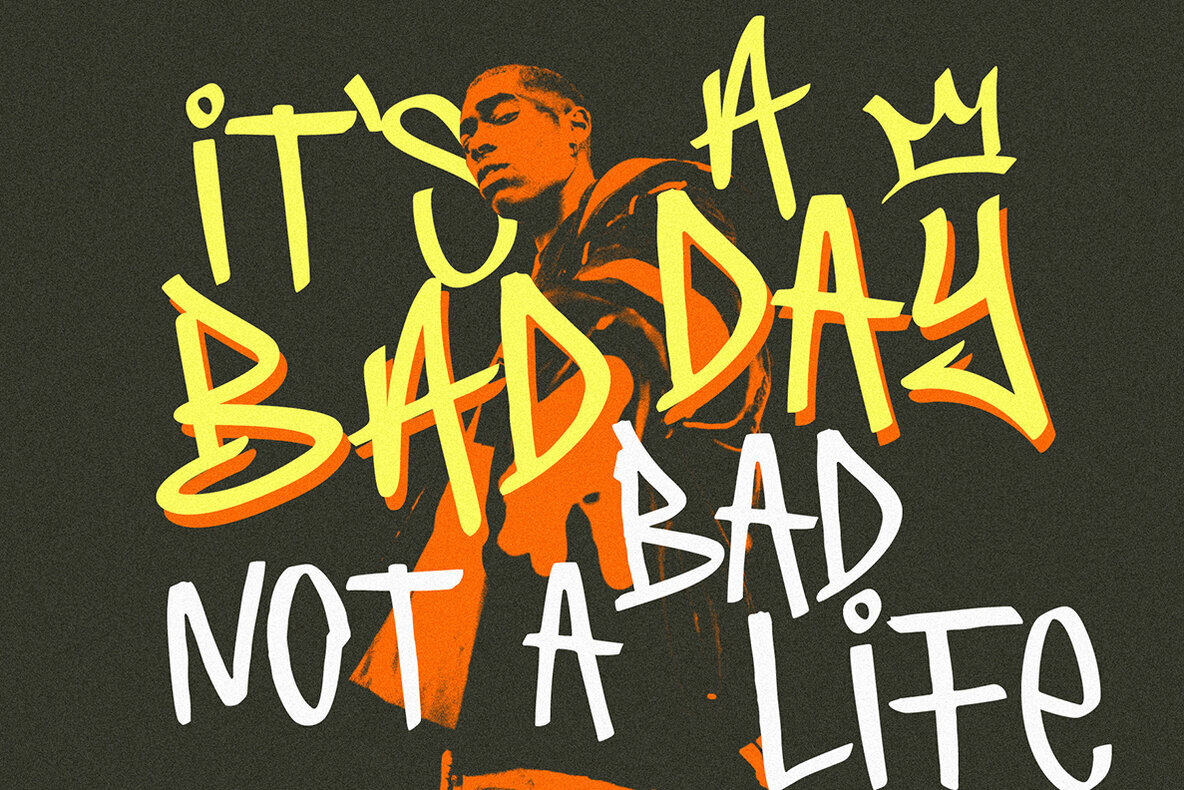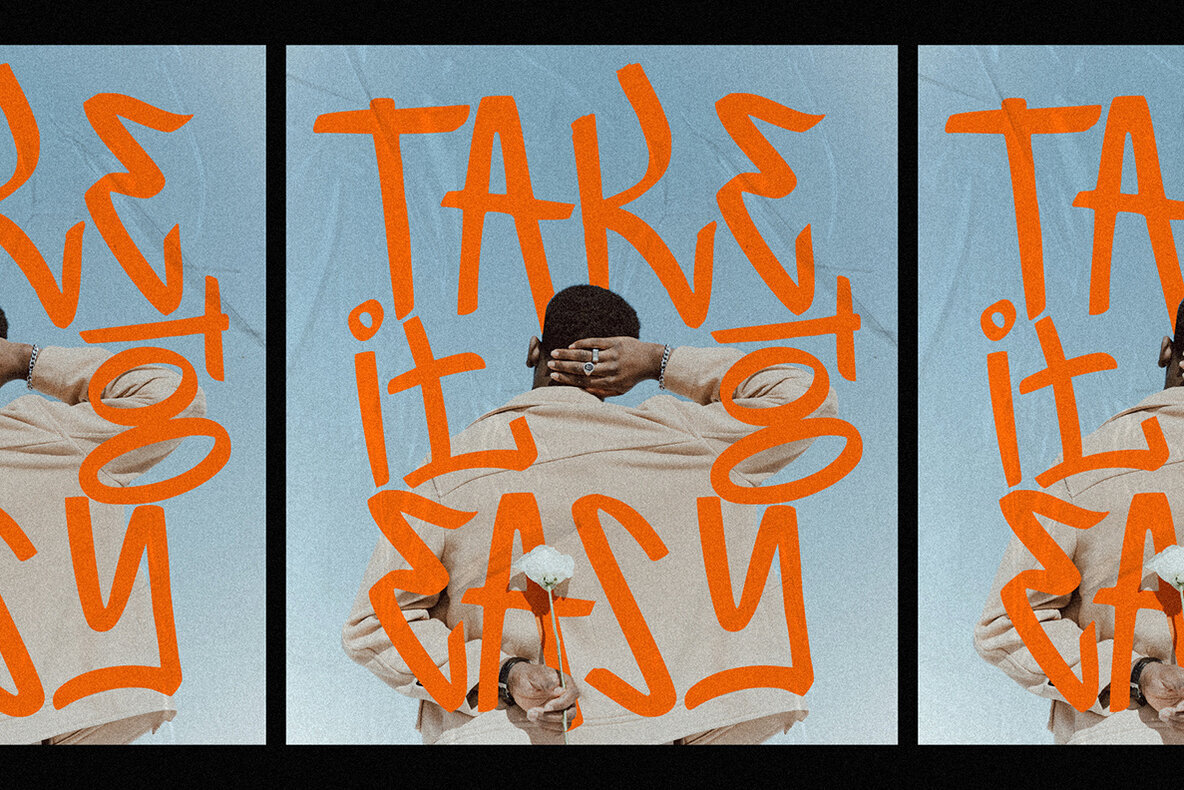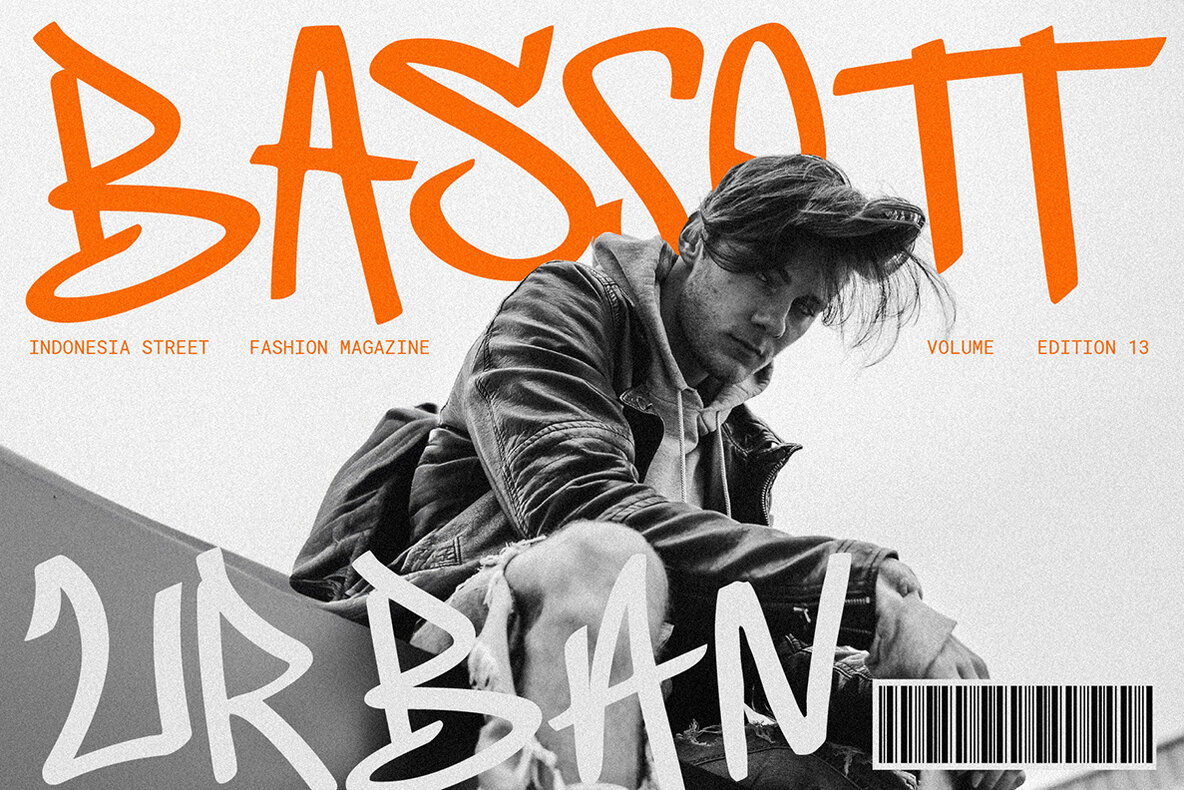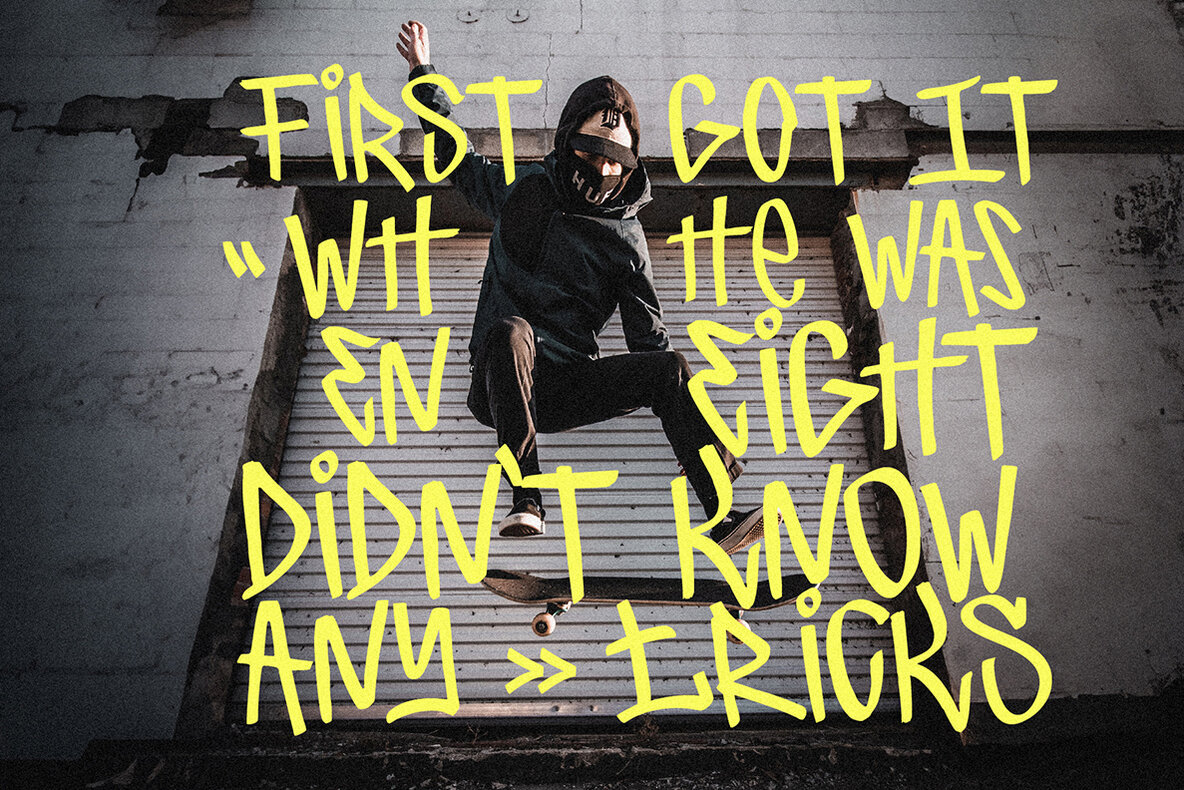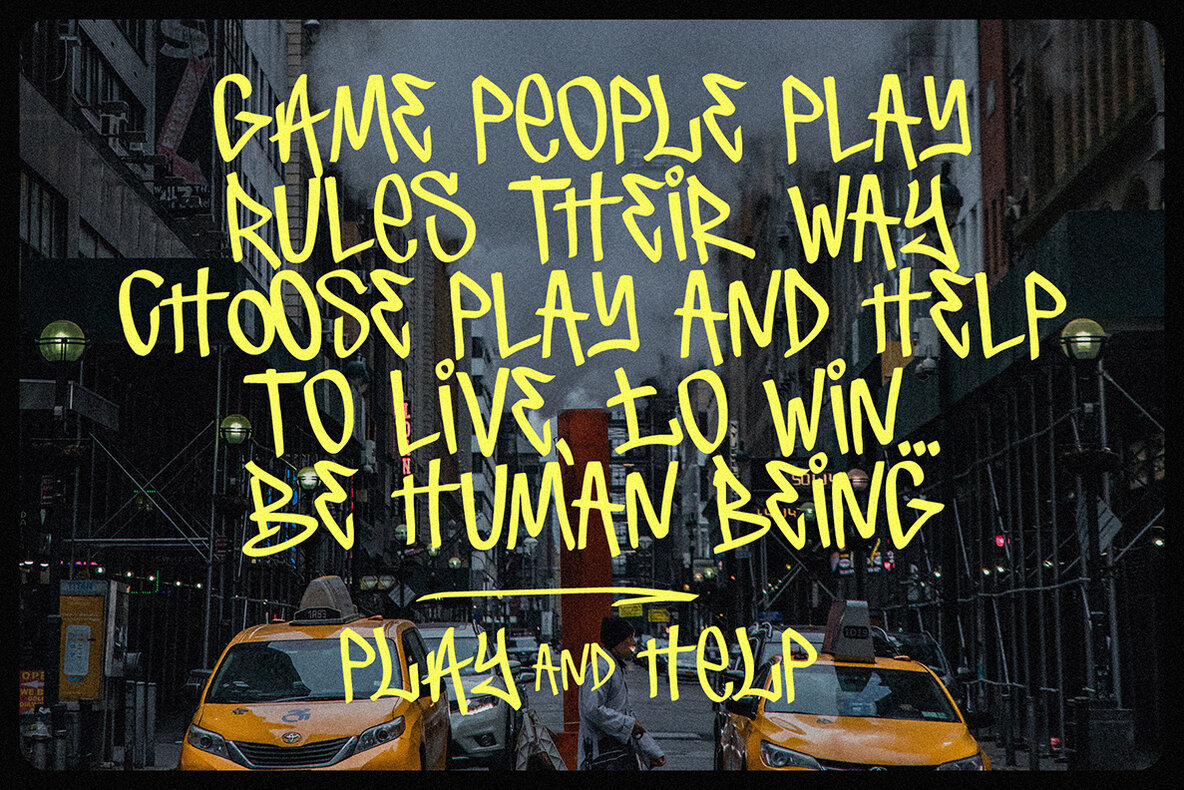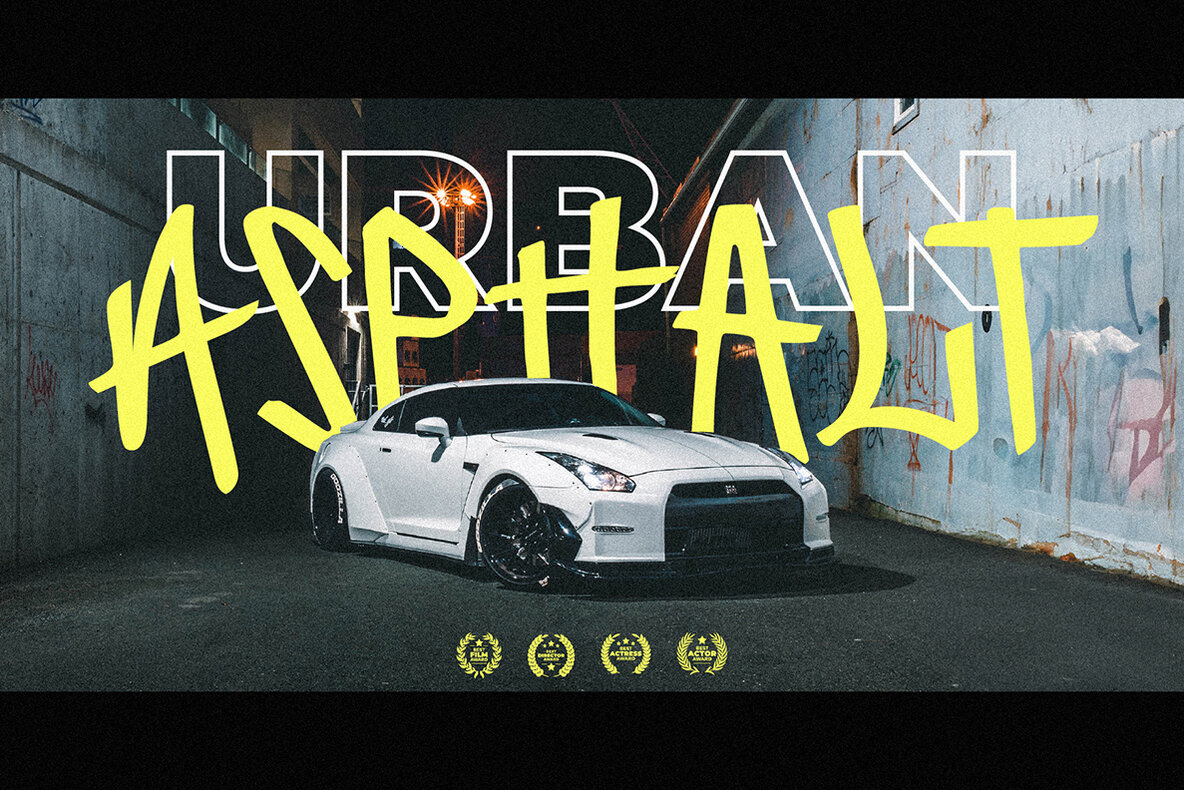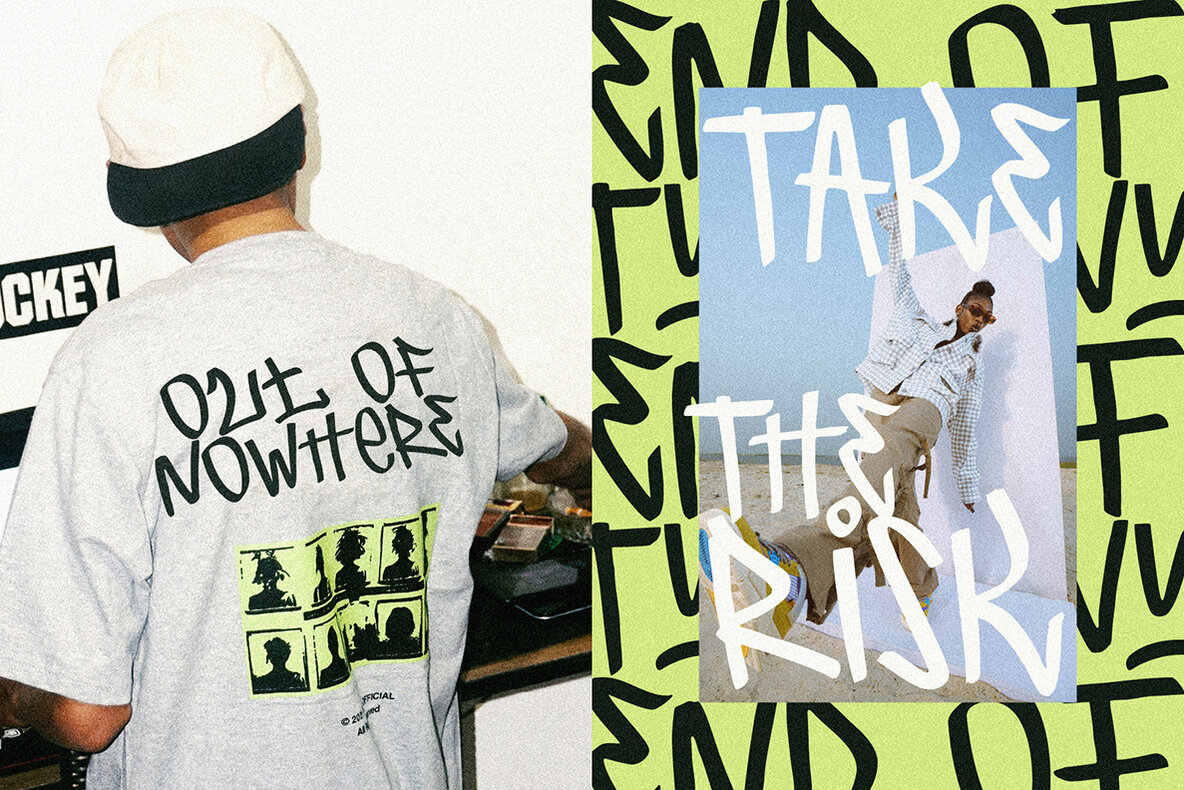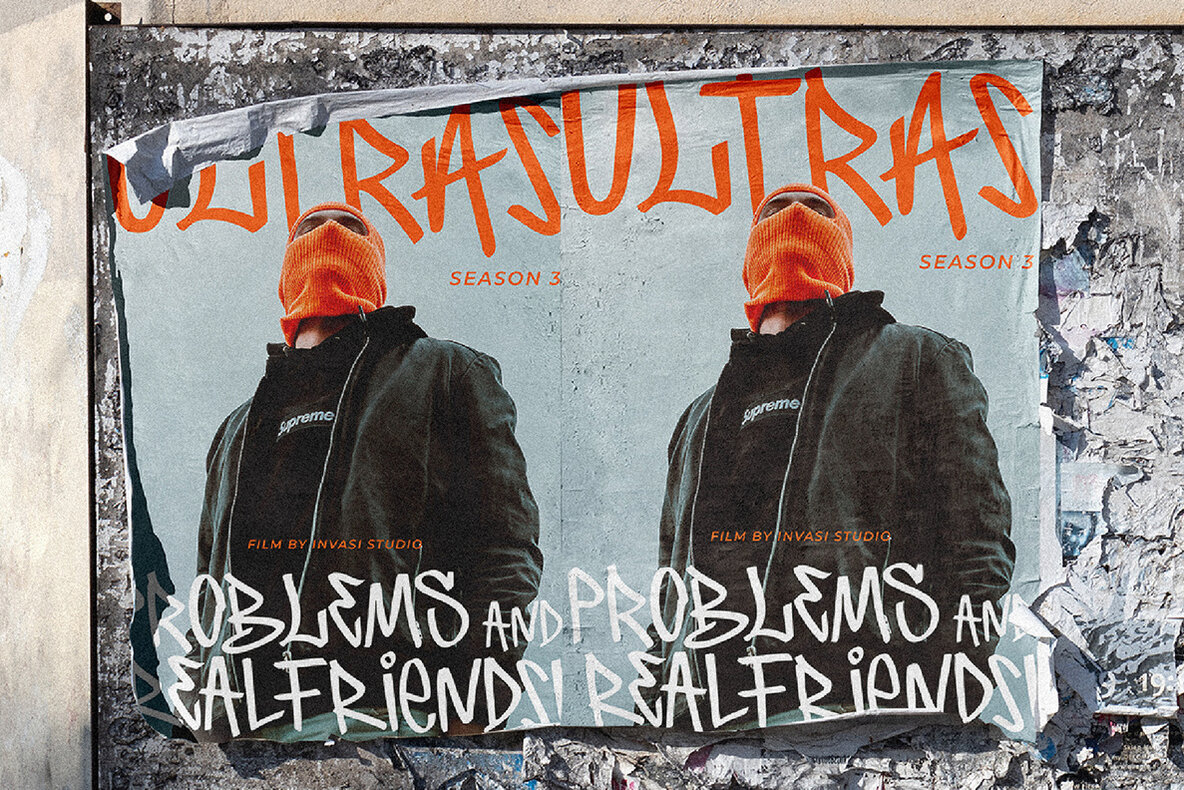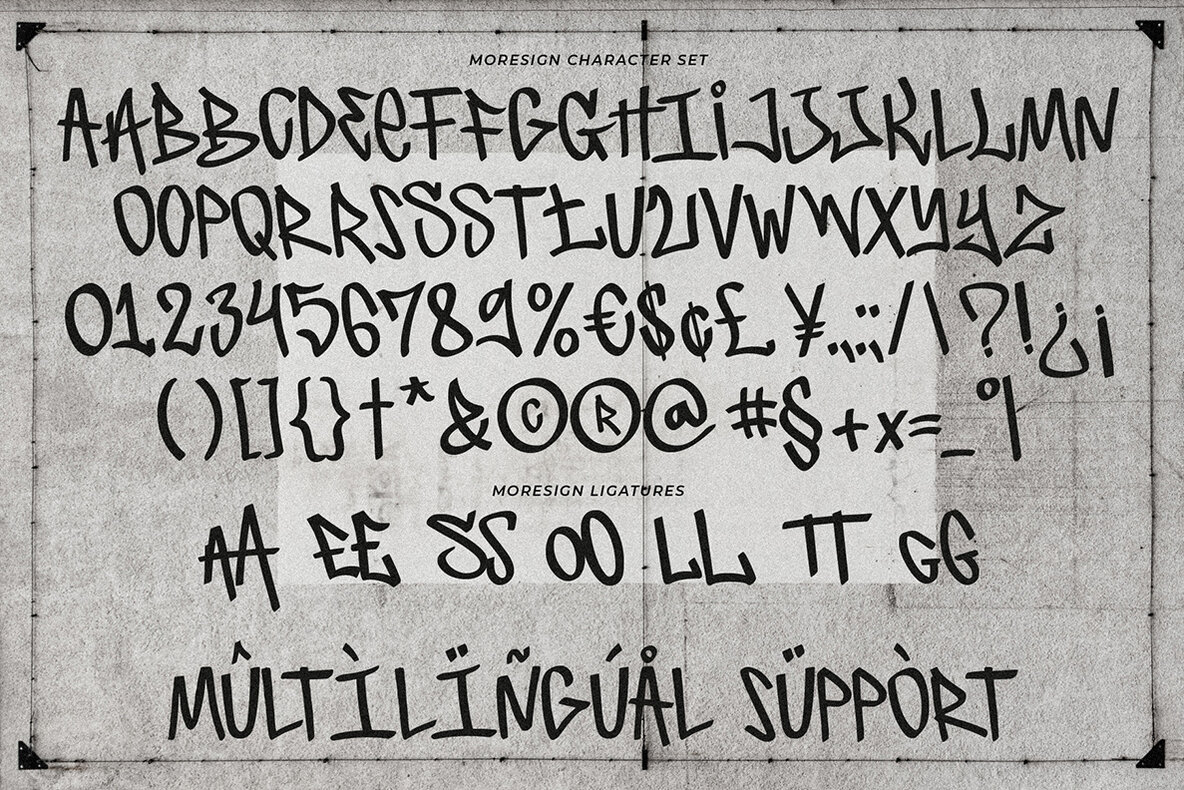
Moresign Font
Moresign Regular
Inspired by Urban Lifestyle, Moresign Font is bold, readable, and tailored to your street art designs. With alternate glyphs and multilingual Latin accents, Moresign Font adds dynamically to titles, logos, packaging, branding, and magazines. It adds impact to words above the background with precision: Moresign Font – the perfect font for making a statement.